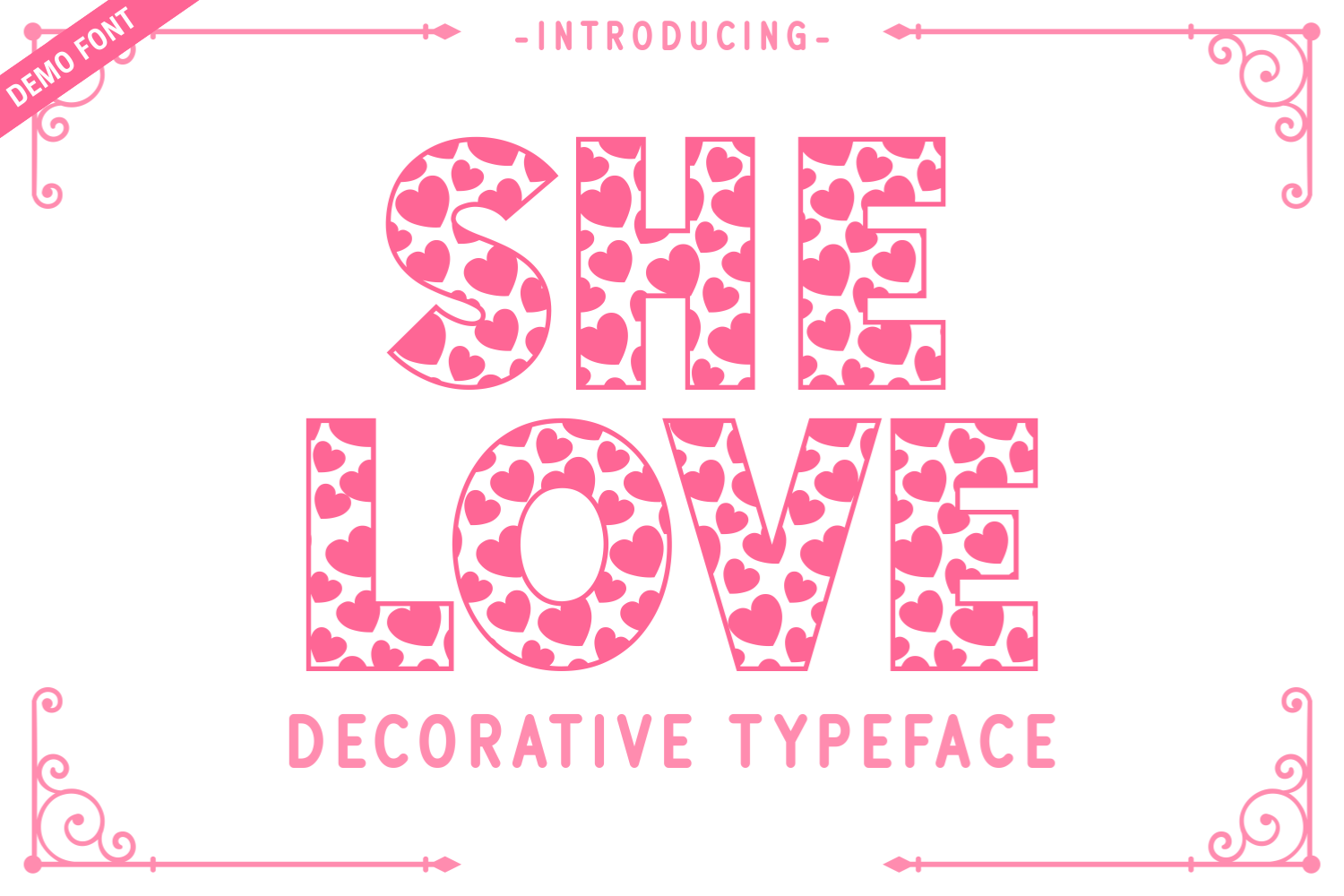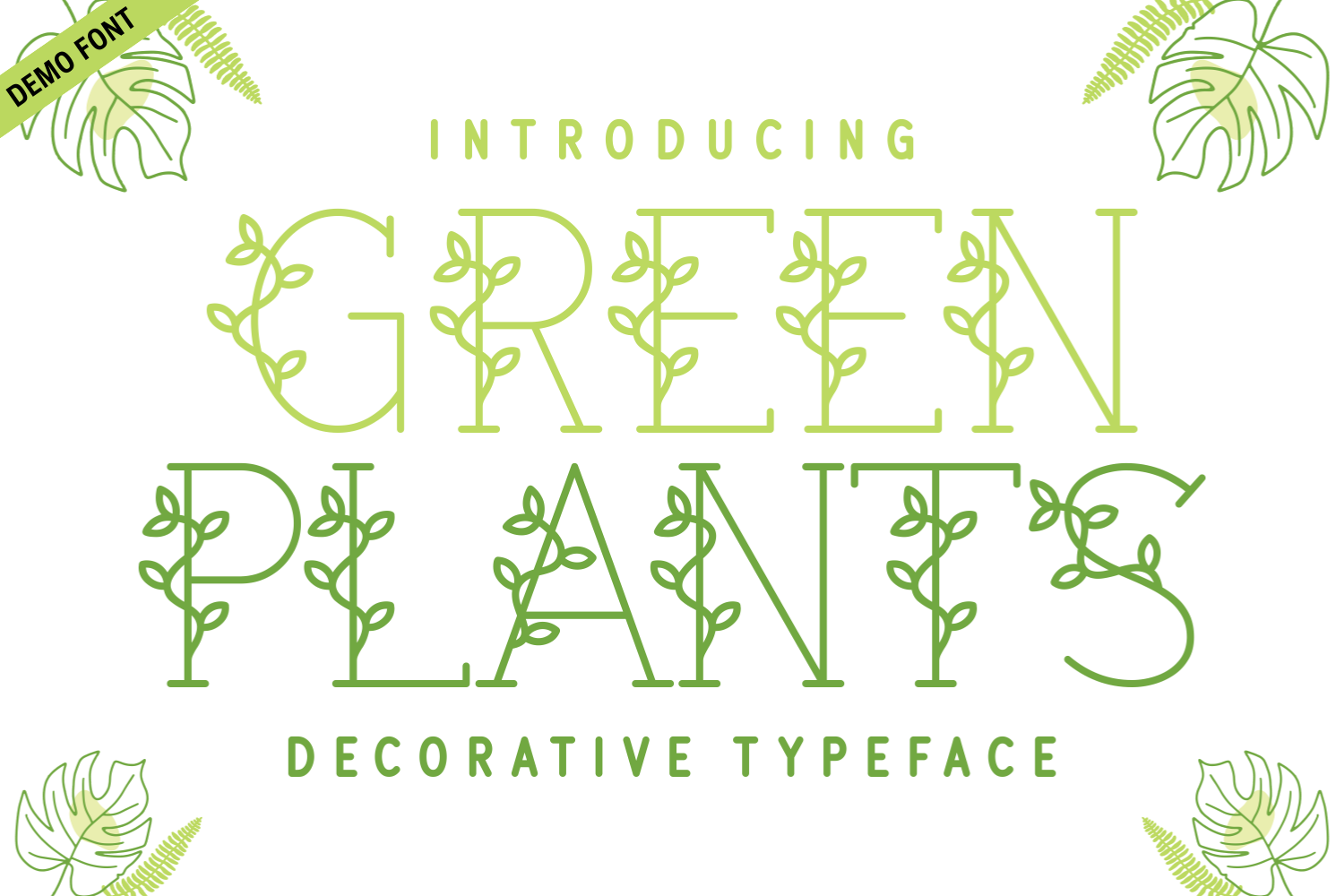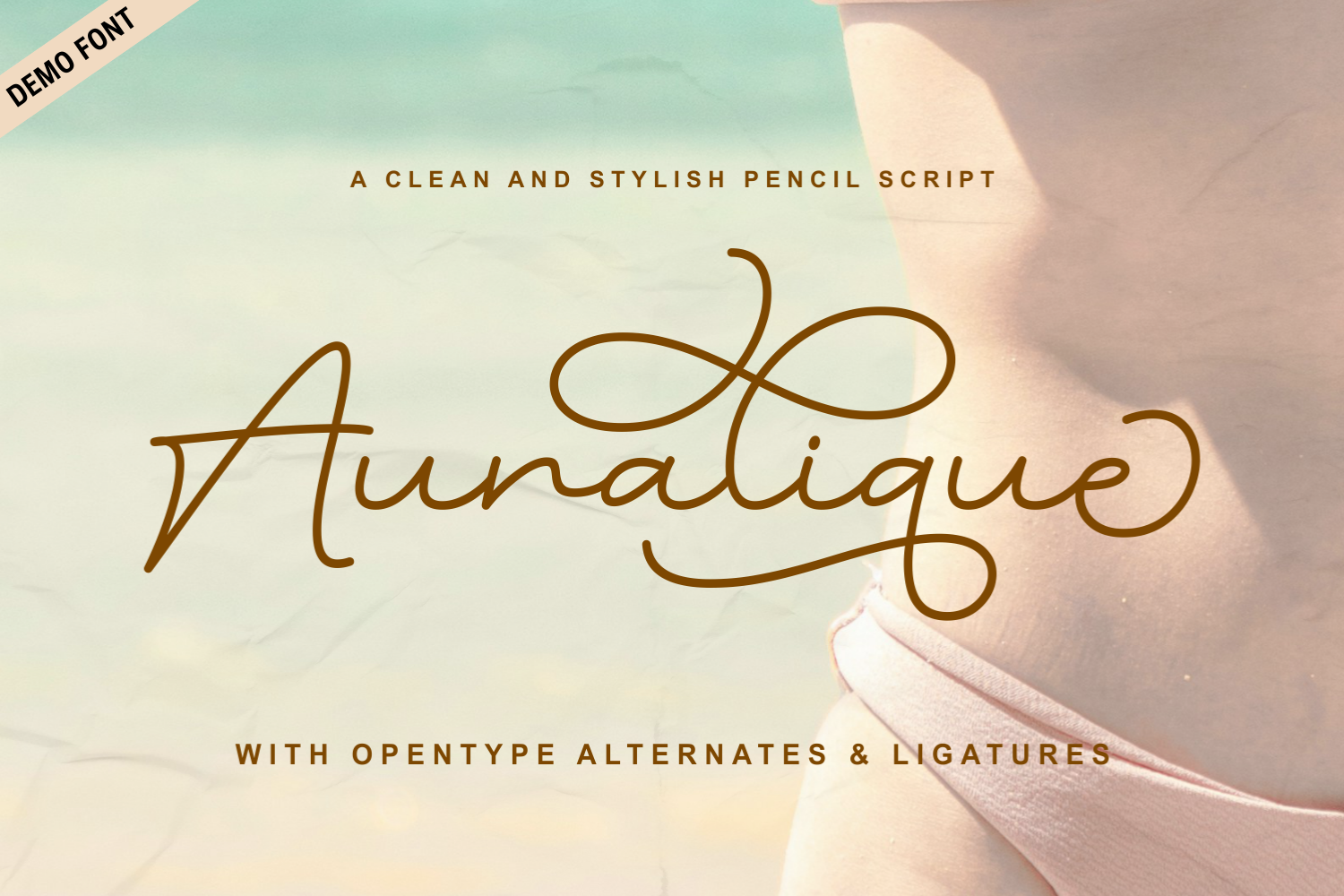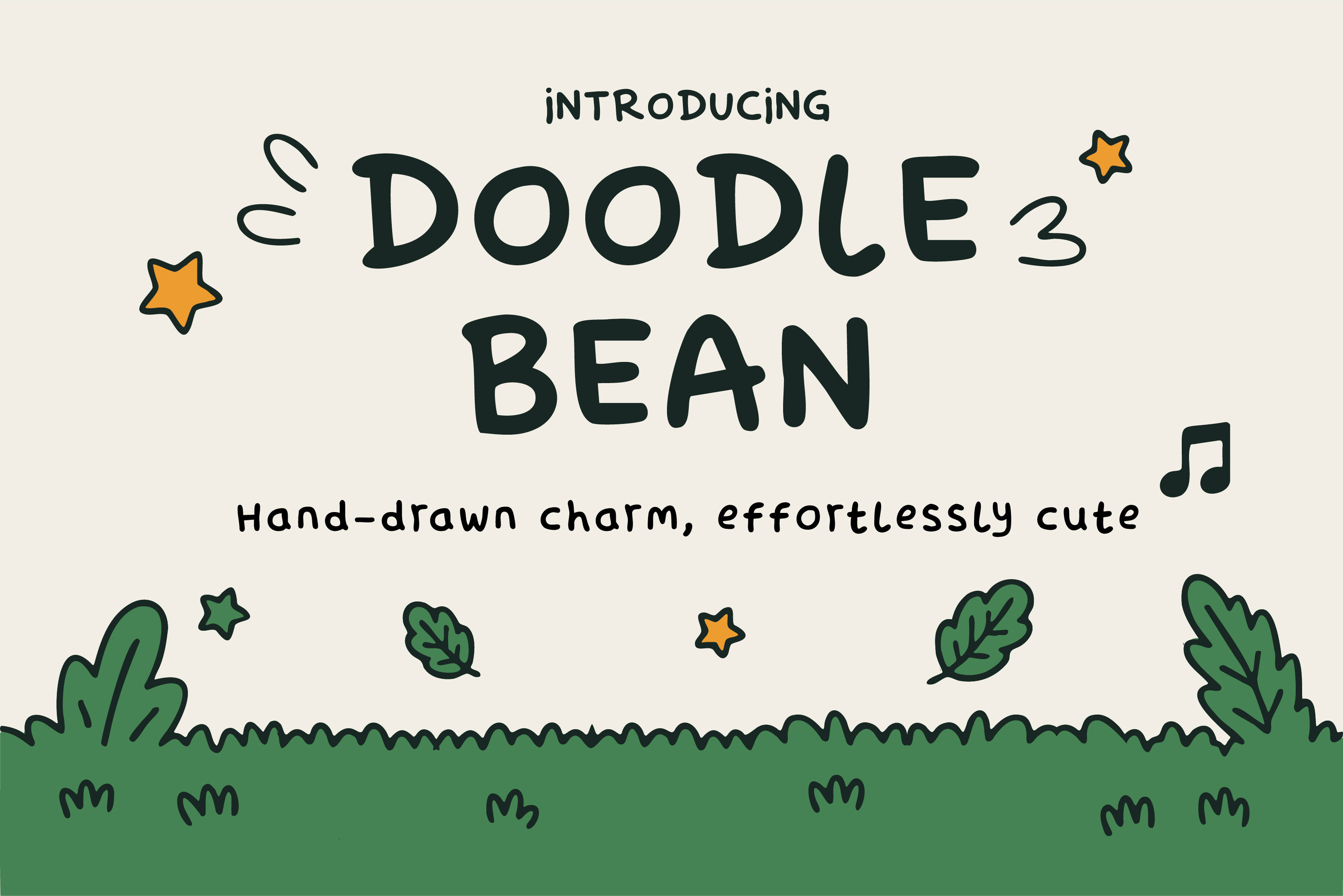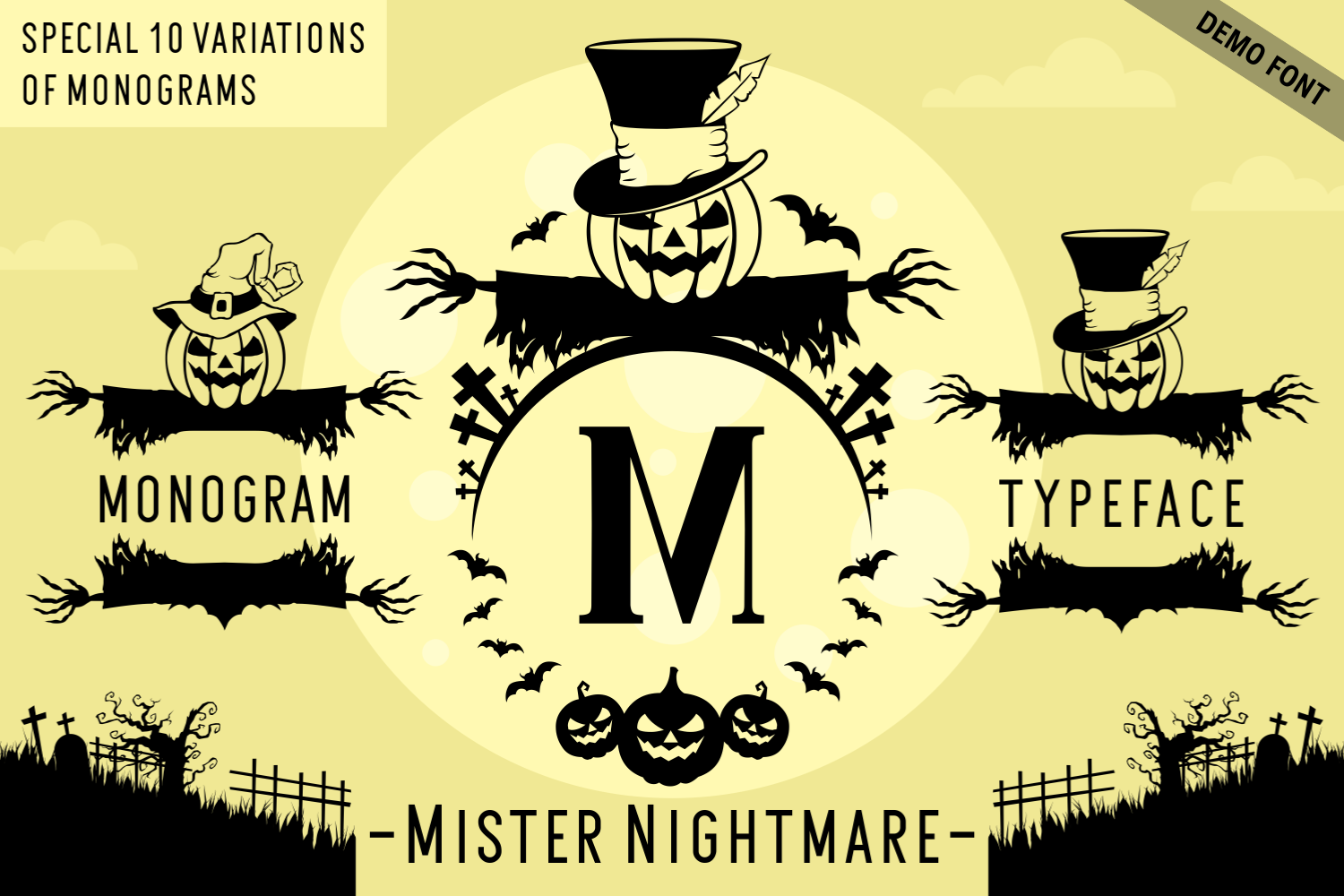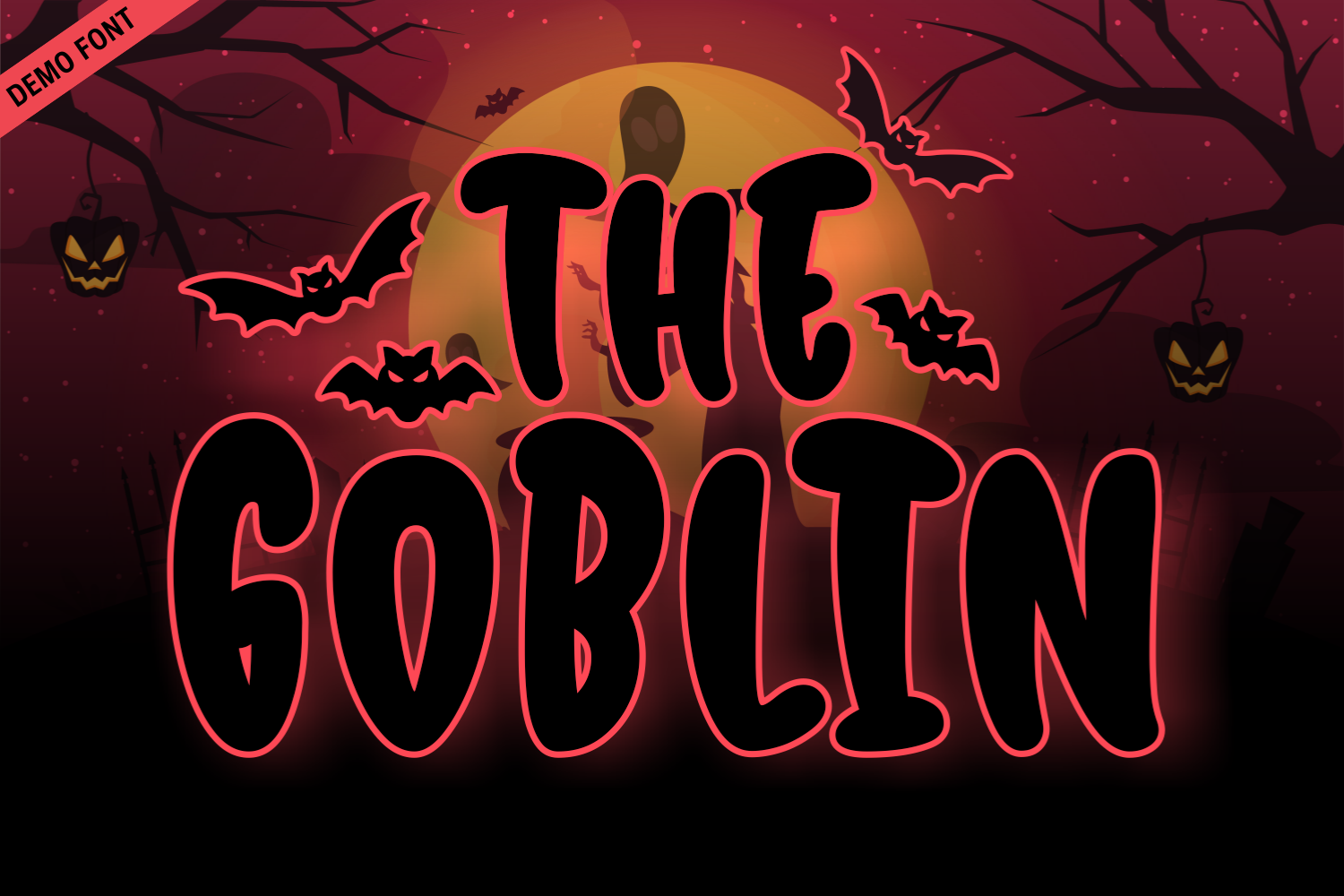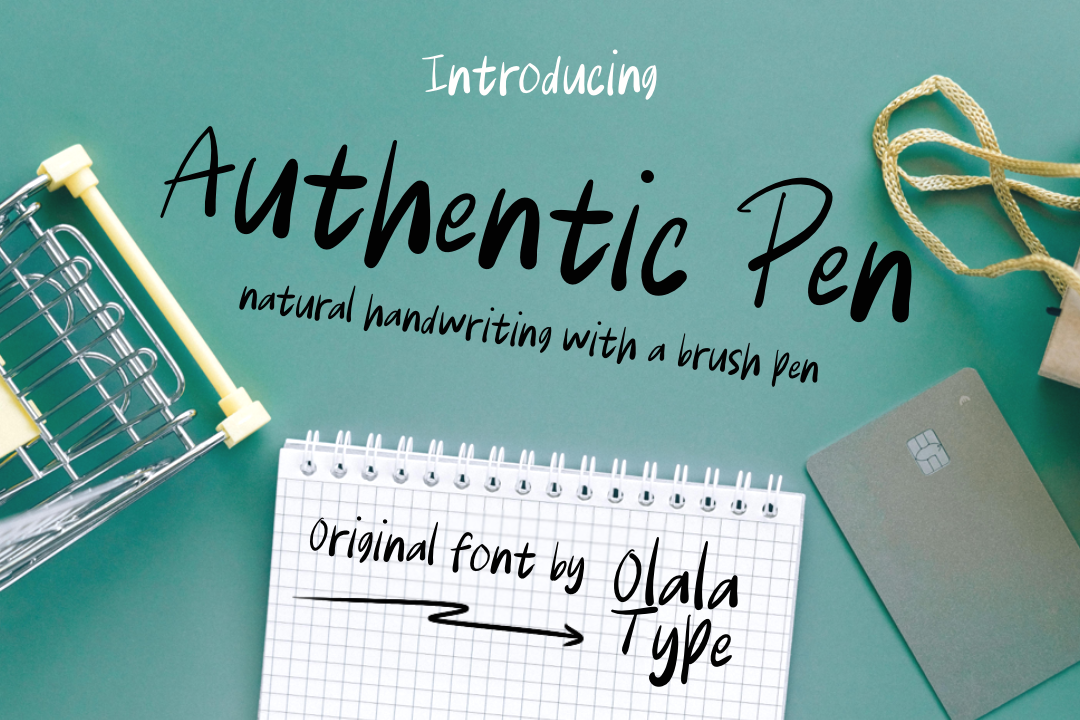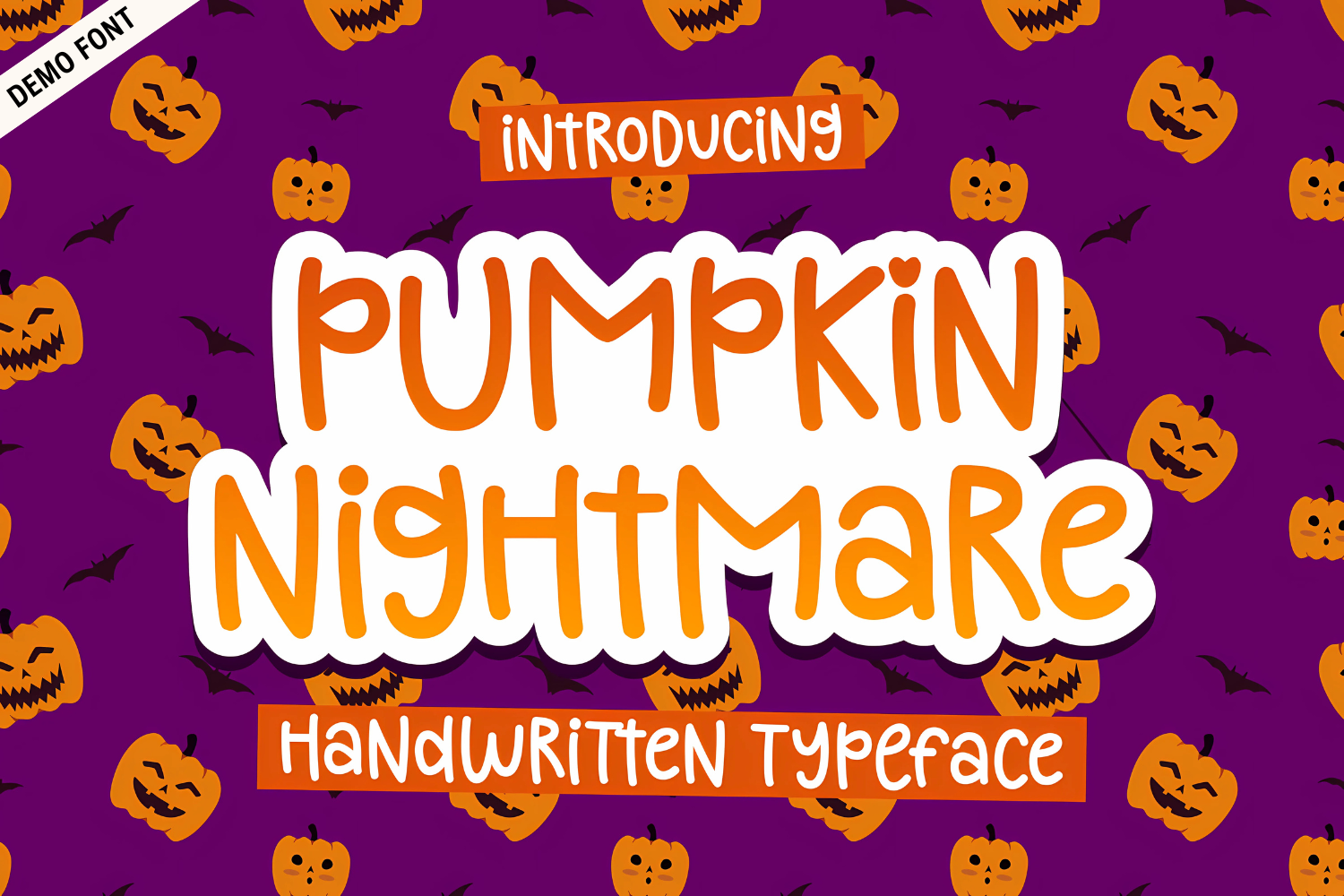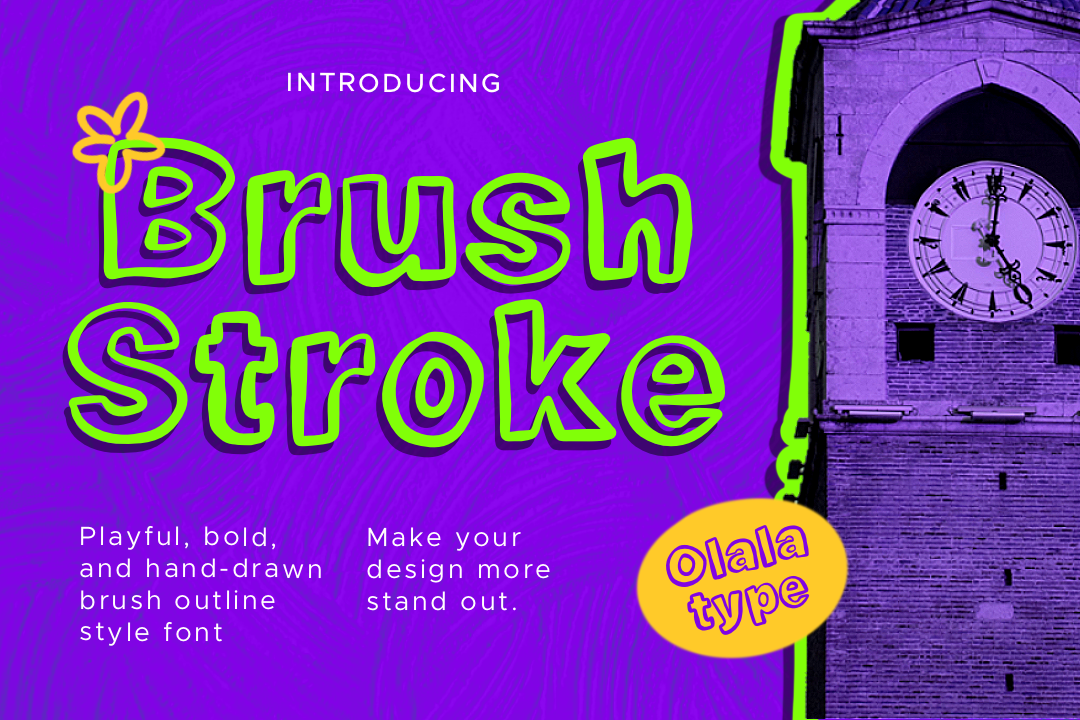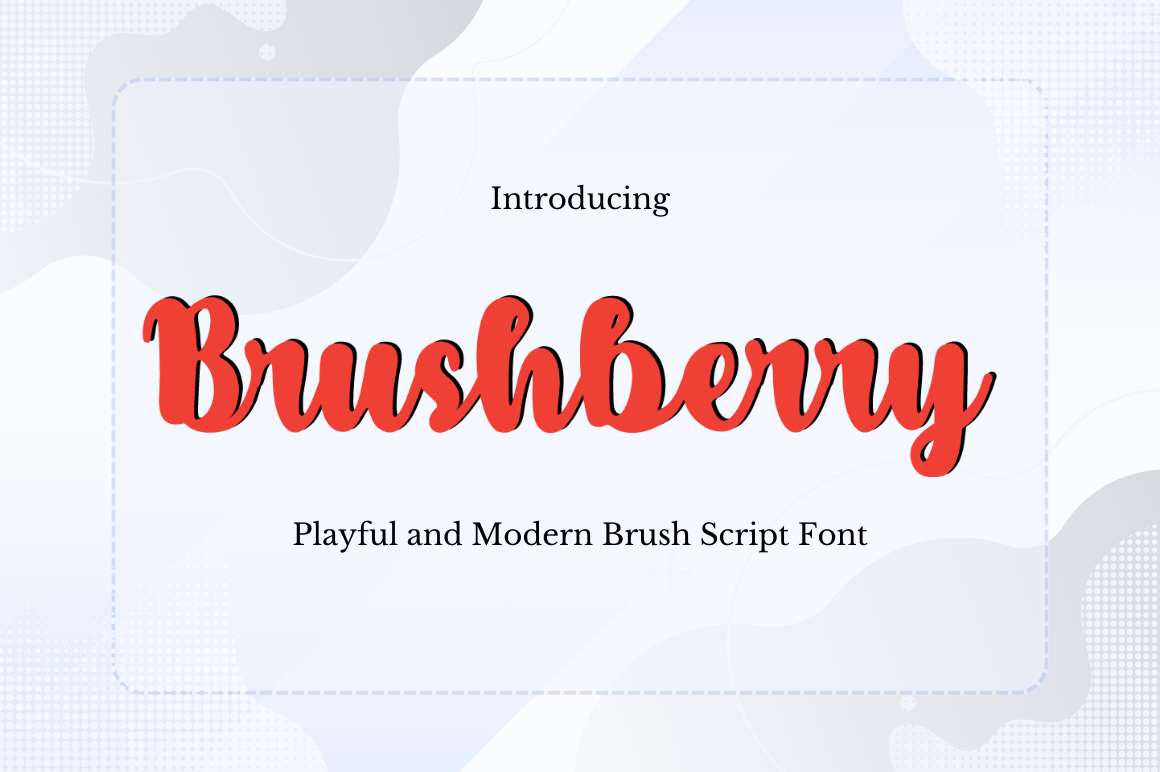
Welcome to this week's Free Fonts Friday, where we present an exciting collection of fonts available for commercial use. This week, explore a range of creative and playful fonts, including She Love, a heart-filled decorative font perfect for romantic designs; Green Plants, a nature-inspired typeface that brings organic charm; and Auralique, an elegant script that adds a hand-drawn feel. Don't miss Doodle Bean, a joyful handwritten font ideal for children's literature; Mister Nightmare and The Goblin, both perfect for your Halloween projects. Lastly, discover Brush Stroke and Brushberry, two expressive fonts designed to elevate your artistic projects. Dive into this collection and find the perfect font for your next design!
She Love Demo
She Love is a vibrant and playful decorative font adorned with charming heart shapes, making it a perfect choice for romantic projects. Ideal for Valentine's Day cards, wedding invitations, or any design that needs a touch of affection, this font's bold and lively style will surely capture attention. The whimsical flair of She Love adds a delightful essence to any creative endeavor, ensuring that your messages resonate with warmth and joy. Whether you're designing for love-themed events or simply looking to infuse your work with a sweet personality, She Love is the go-to font for a heartfelt touch.
Green Plants Demo
Green Plants Demo is an enchanting decorative font inspired by nature's beauty, where each letter is adorned with subtle leaves and vine-like embellishments. This whimsical typeface encapsulates the essence of the outdoors, making it perfect for eco-friendly branding, gardening projects, and seasonal campaigns. The unique combination of refined serif structures and botanical accents provides an elegant and fresh appearance ideal for wedding stationery, product labels, or nature-themed designs. With its versatility and artistic charm, Green Plants Demo breathes life into any project, ensuring your designs feel vibrant and connected to nature.
Auralique Demo
Auralique is an exquisite script font that seamlessly combines elegance with a hand-drawn aesthetic. Its smooth, flowing lines and delicate, pencil-like texture provide each character with a unique and authentic touch. With graceful ascenders and descenders, this font creates a sophisticated rhythm in any text, ideal for branding, invitations, and social media graphics. The expressive ligatures and alternate characters offer designers the freedom to craft captivating logotypes and headlines. Auralique's airy quality, combined with its versatility, makes it a perfect choice for projects that require a refined charm and artistic authenticity, elevating your design to new heights.
Doodle Bean
Doodle Bean is a lively handwritten font that radiates joy and charm. Its cheerful character makes it the perfect choice for a variety of designs, from delightful greeting cards to whimsical children's books. This font's playful strokes and unique personality add a delightful touch to any project, ensuring your designs capture the hearts of your audience. Whether you're crafting fun invitations or playful social media graphics, Doodle Bean brings a sense of happiness and creativity. With its engaging style, this font is sure to brighten up your work and make it stand out.
Mister Nightmare Demo
Mister Nightmare is an innovative Halloween-themed font that captures the spirit of the season with its bold serif characters and spooky monogram frames. This font transforms each letter into a part of a playful Halloween scene, featuring thematic elements like pumpkins and bats that evoke both fright and fun. Perfect for posters, invitations, or party decor, Mister Nightmare adds an immersive atmosphere to your designs, making them unforgettable. With its PUA-encoded features, accessing alternate characters and glyphs is a breeze, allowing for creative customization that enhances your projects and engages your audience.
The Goblin Demo
The Goblin is a whimsical and bold Halloween font that brings a playful spirit to your designs. With its chunky letterforms and mischievous character, this font is perfect for Halloween-themed projects ranging from posters and invitations to haunted house signs. Its fun and slightly spooky vibe adds a delightful touch to any creation, making it an ideal choice for events and projects that require a hint of frightful fun. The Goblin's unique style ensures your designs stand out and capture the essence of the Halloween season, making it a must-have for festive creativity.
Authentic Pen
Authentic Pen is a beautifully natural handwritten font that brings a genuine touch to your creative projects. Crafted to mimic the fluidity of a brush pen, this elegant typeface is designed for high readability while conveying authenticity. It’s perfect for heartfelt invitations, stylish branding, and social media graphics. With its chic and sophisticated flair, Authentic Pen enhances your designs, making them feel personal and connected. Whether you're creating quotes, elegant stationery, or any project requiring a warm touch, this font will elevate your work and engage your audience.
Pumpkin Nightmare Demo
Pumpkin Nightmare is a playful handwritten typeface that captures the whimsical essence of Halloween. Its bold, uneven shapes create a charmingly spooky vibe, perfect for festive projects. This font features clean uppercase letters alongside quirky lowercase characters, adding a touch of friendly fright to any design. Ideal for headlines, posters, invitations, and t-shirt designs, Pumpkin Nightmare brings a delightful blend of fun and eeriness, making it an excellent choice for any project requiring a lighthearted yet spooky flair.
Brush Stroke
Brush Stroke is a dynamic and expressive typeface that embodies the essence of hand-drawn creativity. Each letter is skillfully crafted to showcase unique outlines and bold strokes, making it a standout choice for expressive typography. This font captures the charm of handmade details, allowing designers to infuse their projects with a distinct personality. Whether you're looking to create eye-catching headlines, custom lettering, or artistic branding, Brush Stroke delivers a captivating visual experience that resonates with creativity and flair.